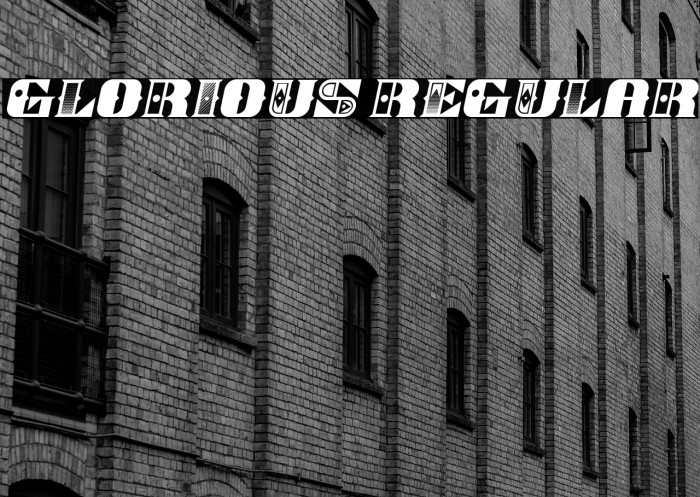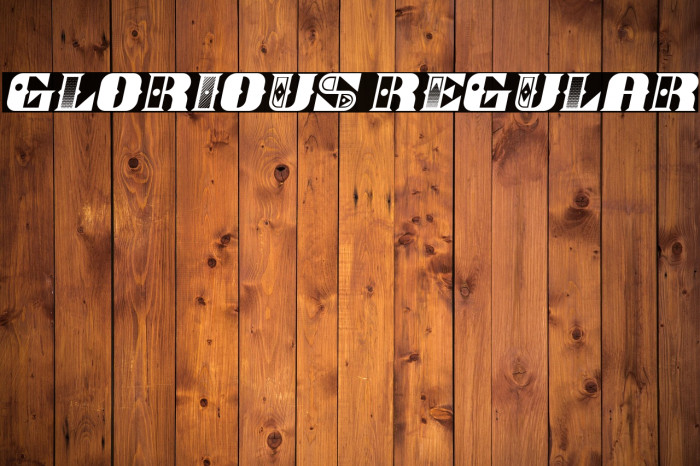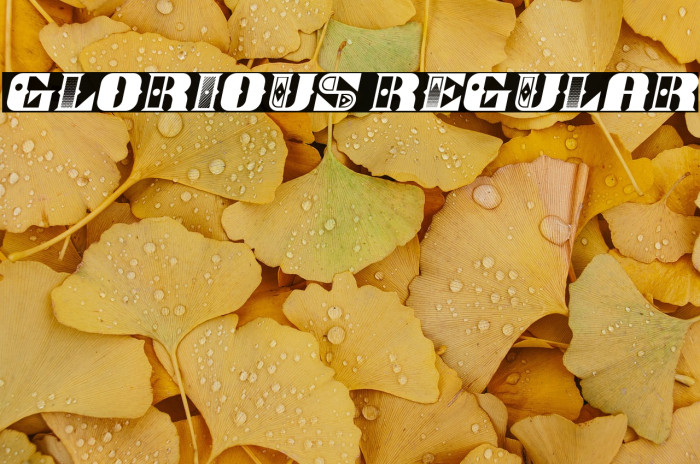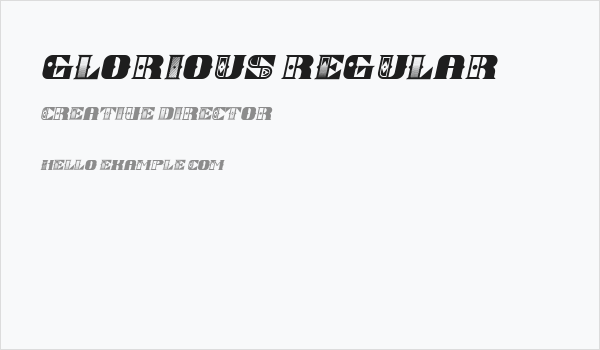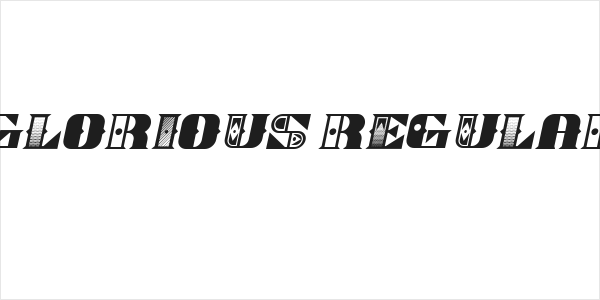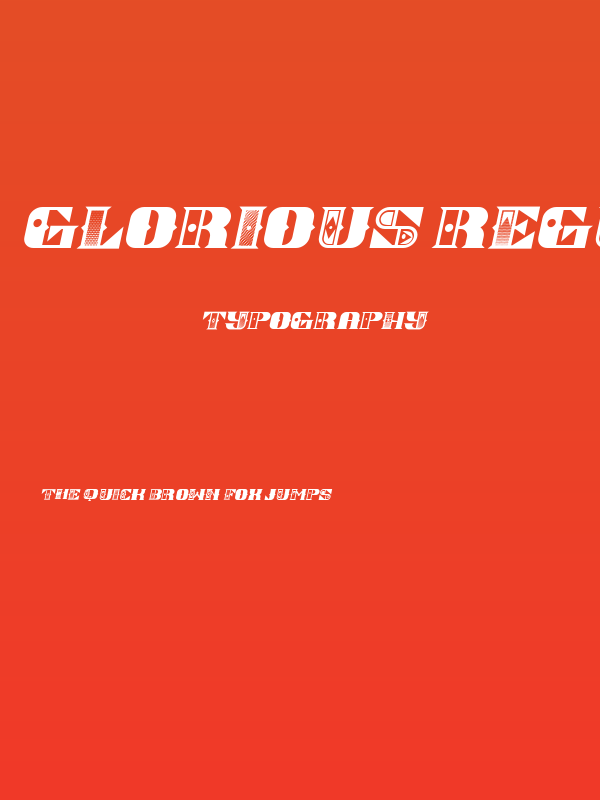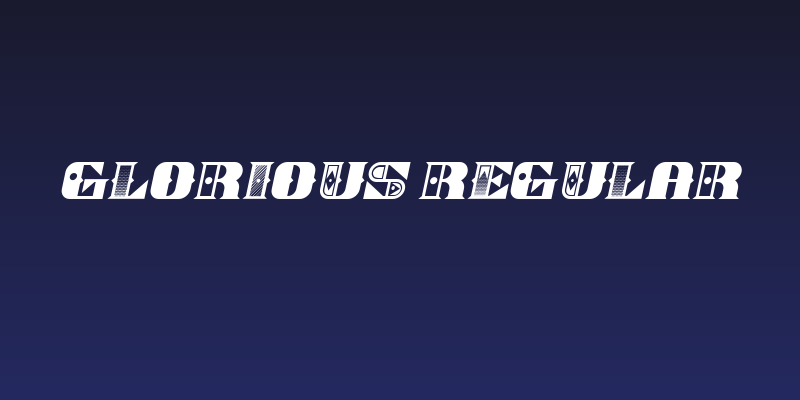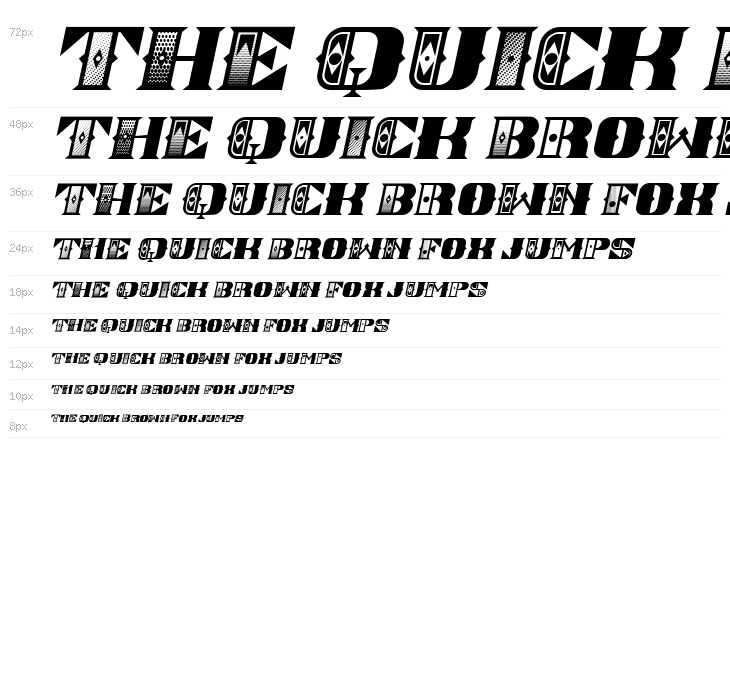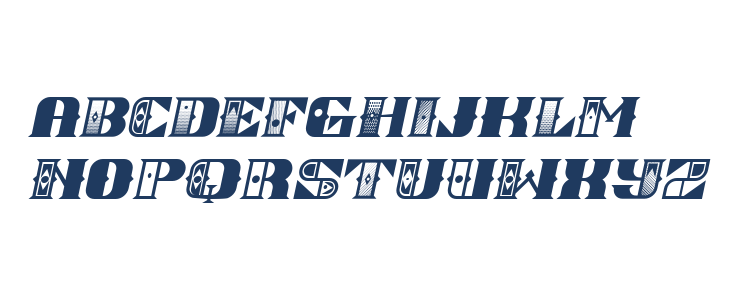
Glorious Regular Font
Glorious Regular Description
This font features a bold and decorative style with intricate patterns and unique cut-out designs within each letter. The uppercase letters exhibit a playful yet sophisticated appearance, combining elements of art deco and modern design. Each character is distinct, with varying line thicknesses and decorative elements that add a sense of depth and texture. The font's overall aesthetic is eye-catching and dynamic, making it suitable for creative and artistic projects. Its bold nature ensures it stands out, while the detailed patterns provide a touch of elegance and flair.
| Proposed Projects | Ideal for posters, album covers, branding materials, and any project needing a bold, artistic touch. |